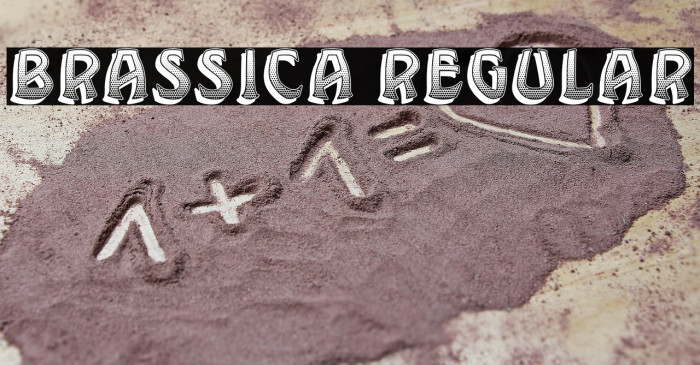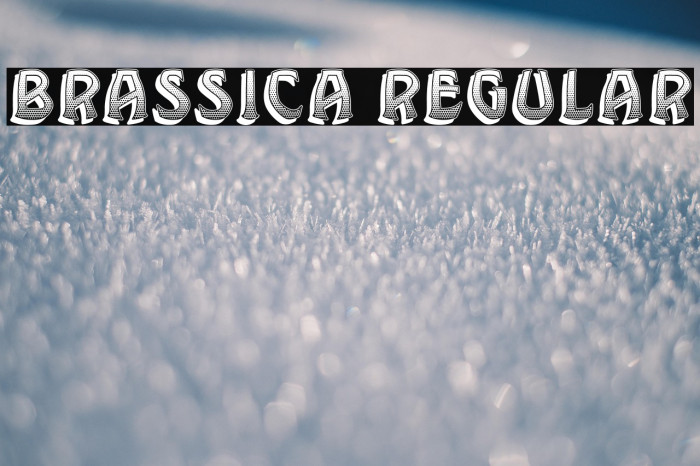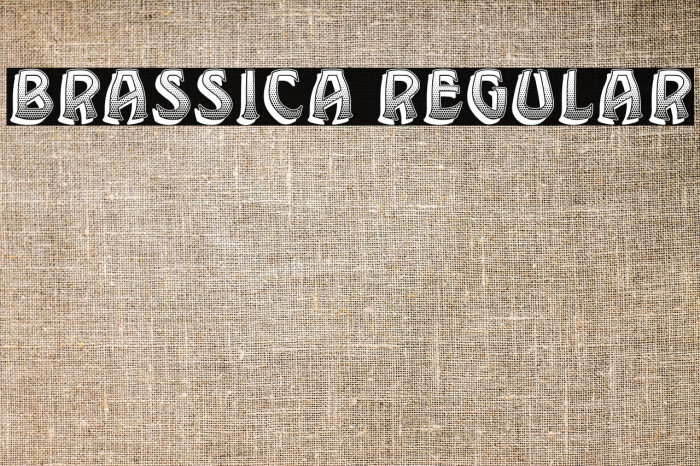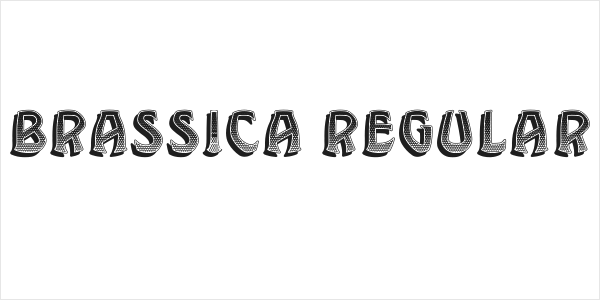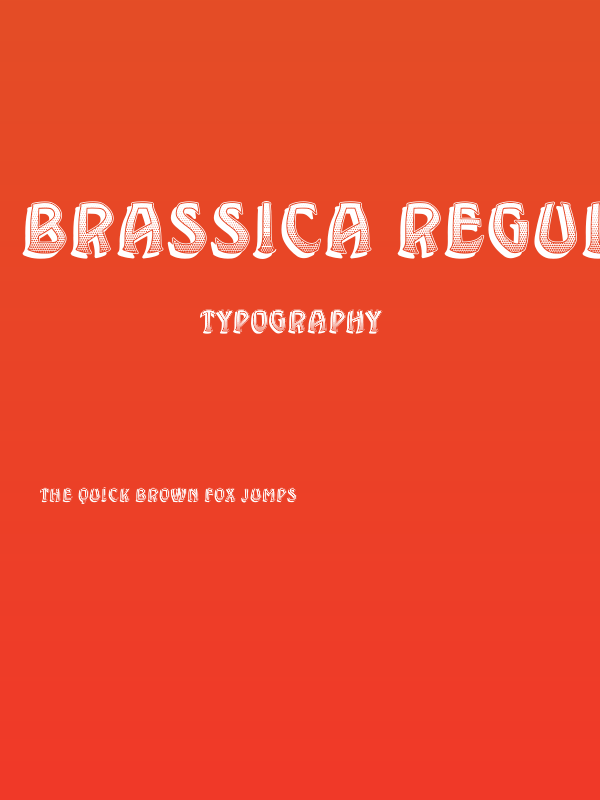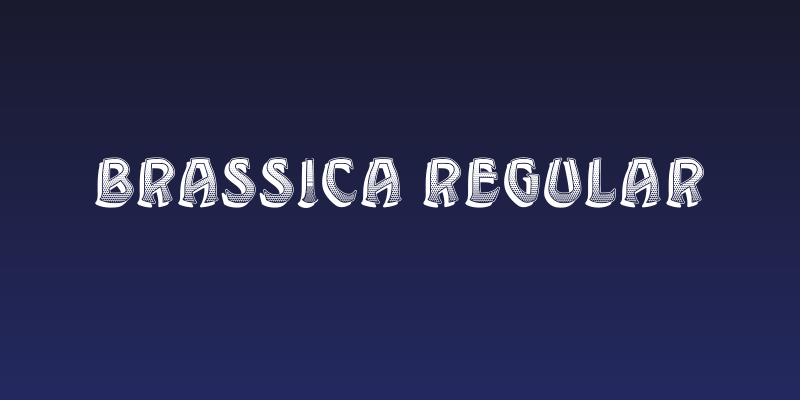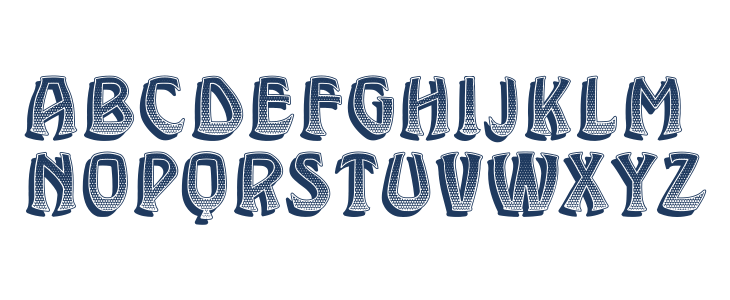
Brassica Regular Font
Brassica Regular Description
This font features a bold and decorative style with a unique dotted texture inside each character, giving it a playful and eye-catching appearance. The letters are uppercase and have a three-dimensional effect, with a shadow that adds depth. The design is reminiscent of vintage circus or carnival typography, making it ideal for projects that require a fun and nostalgic feel. The characters are well-spaced, ensuring readability while maintaining their decorative nature.
| Proposed Projects | Ideal for posters, event invitations, branding for playful or vintage-themed products, and eye-catching headlines. |